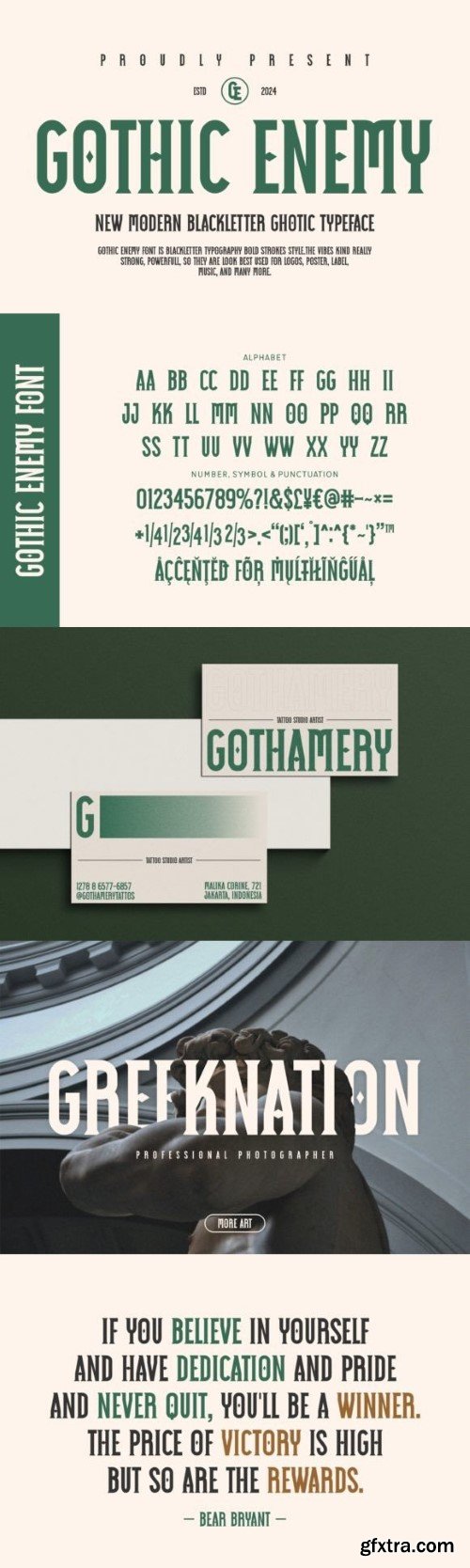
Gothic Enemy is a modern blackletter typeface that blends traditional Gothic script elements with bold, powerful strokes. This striking typography exudes a strong and commanding presence, making it an ideal choice for impactful and visually compelling designs. Its robust design makes it suitable for a variety of creative and professional applications. Perfect for designing eye-catching posters that need to make a strong statement. The bold strokes and Gothic design elements ensure that the text stands out and captures attention.